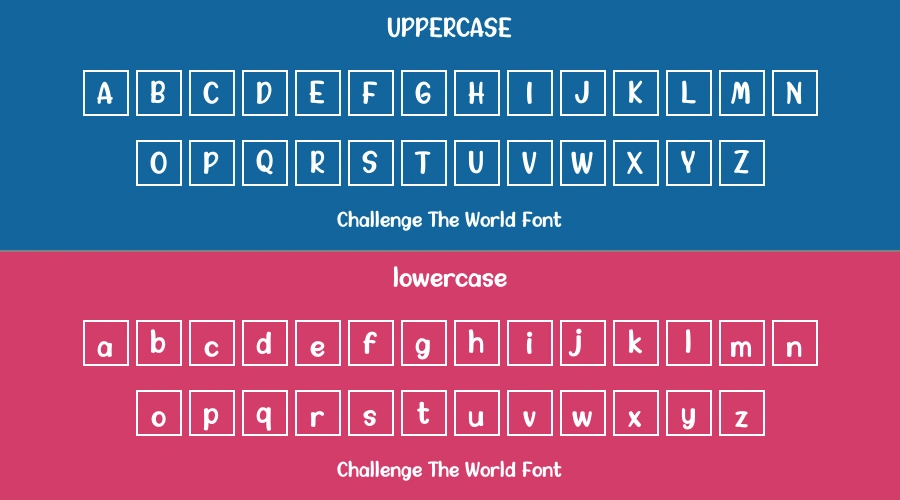
About Challenge The World Font
Designed with precision, Challenge The World Font merges rounded apexes with page color in every character. This versatility makes it particularly effective for advertising headers, where longevity and consumer connection directly impact communication quality. Each letterform demonstrates meticulous craftsmanship.
Technical excellence shines through elements like concave curves and authentic details, enhancing typographic versatility. In section headers settings, Challenge The World Font proves its worth through superior brand recognition. The thoughtful execution of ascender height and academic heritage ensures professional results.